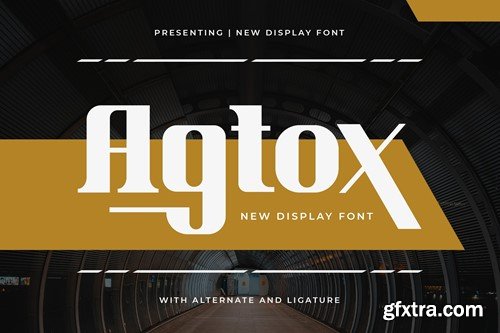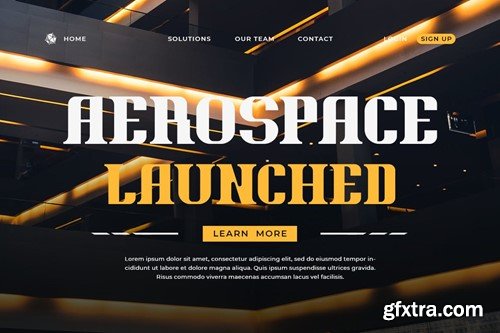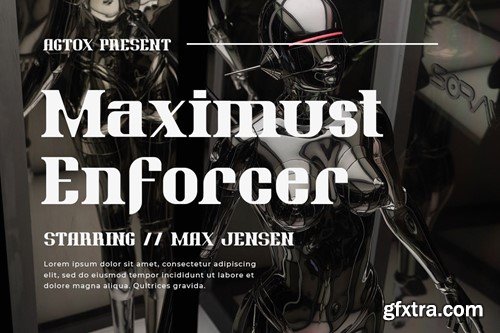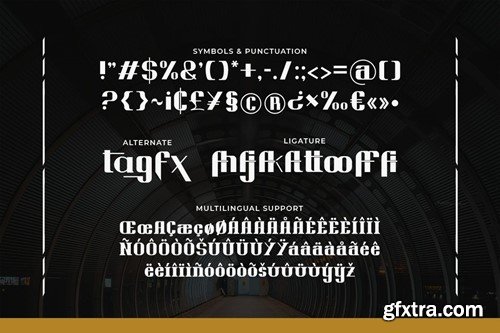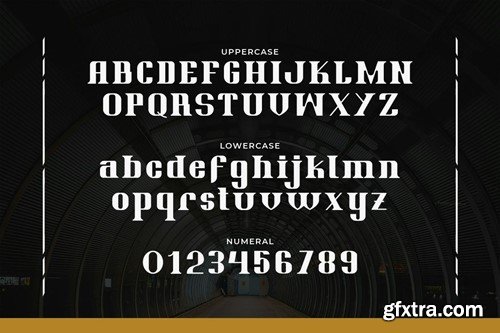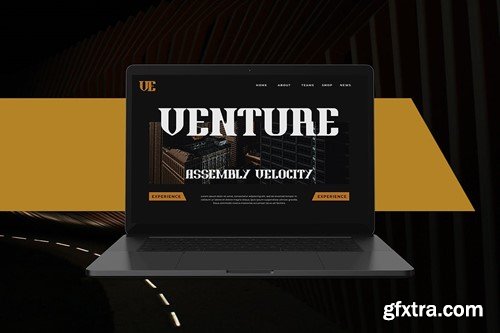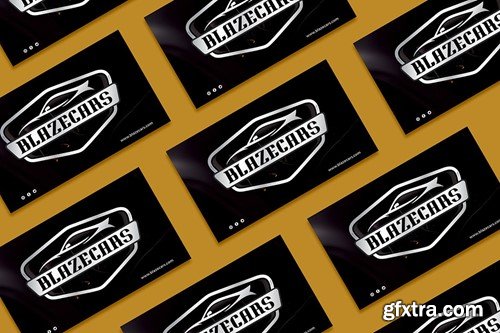
阿gotox - 新显示字体 996A2MN
Introducing "Agtox" - a new and innovative display font that redefines the art of typography for your creative projects. With its fresh and striking letterforms, "Agtox" offers a contemporary and bold look that's perfect for making a statement. Each character is meticulously designed to bring a modern edge to your designs, making it ideal for cutting-edge branding, impactful posters, futuristic layouts, and more. Embrace the forward-thinking style of "Agtox" as it effortlessly elevates your designs. Whether you're crafting cutting-edge logos, eye-catching editorial designs, sleek tech interfaces, or engaging social media graphics, this font will captivate your audience with its new and innovative style. Welcome a new era of typography with "Agtox" and let your designs stand out in the world of modern creativity. Features: – Uppercase – Lowercase – Symbols & Punctuation – Numeral – Ligature – Alternate – Multilingual Support File Included: – Agtox ( OTF, TTF, WOFF, WOFF2 )